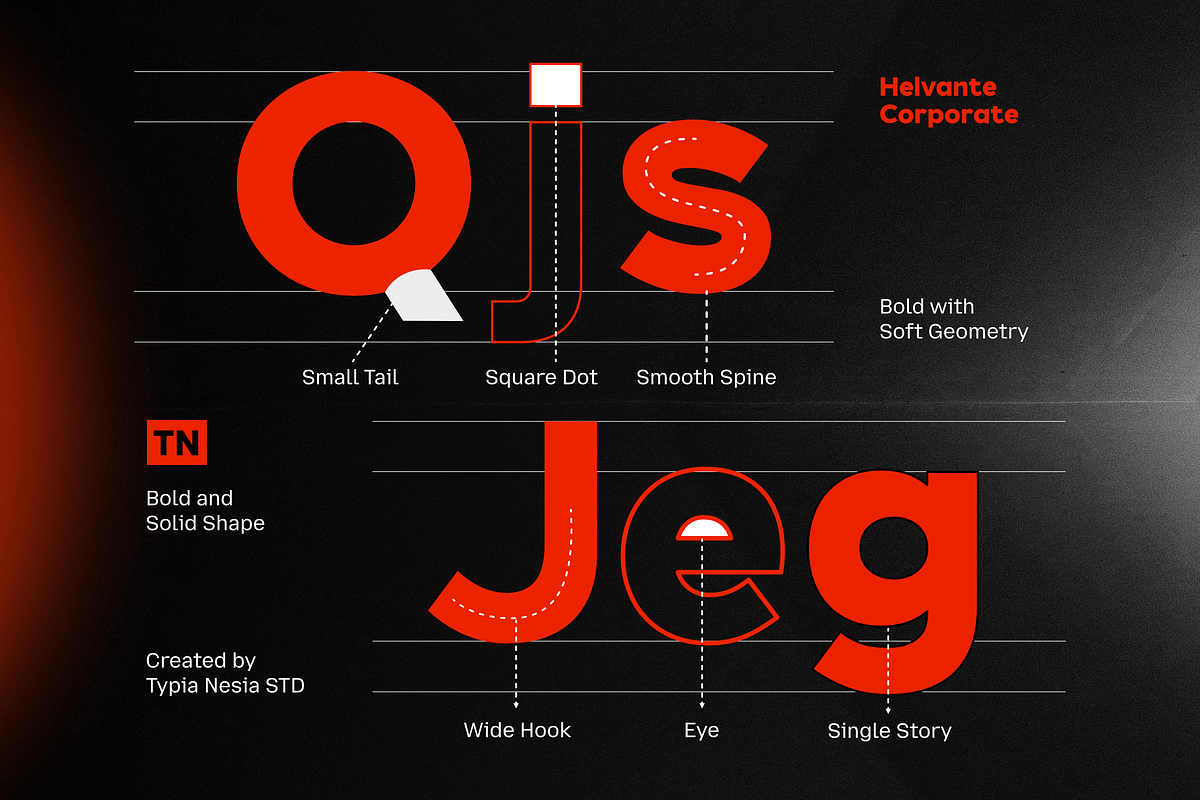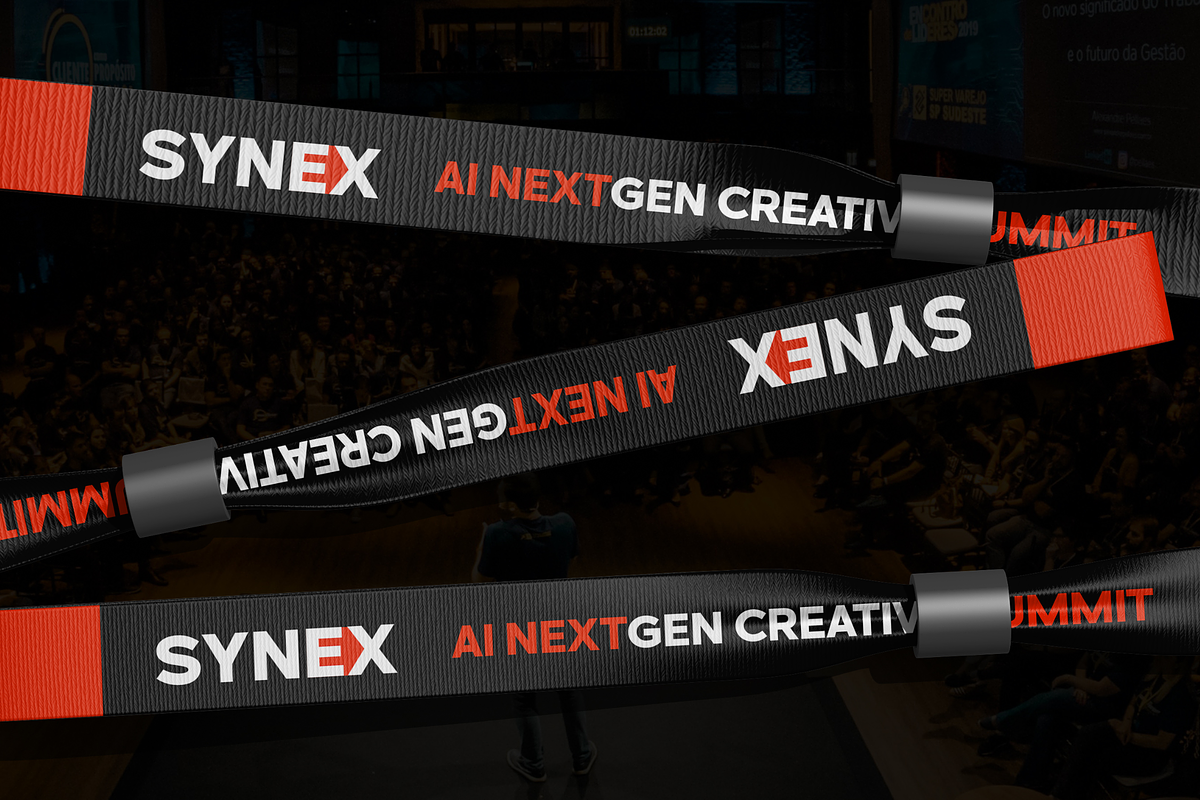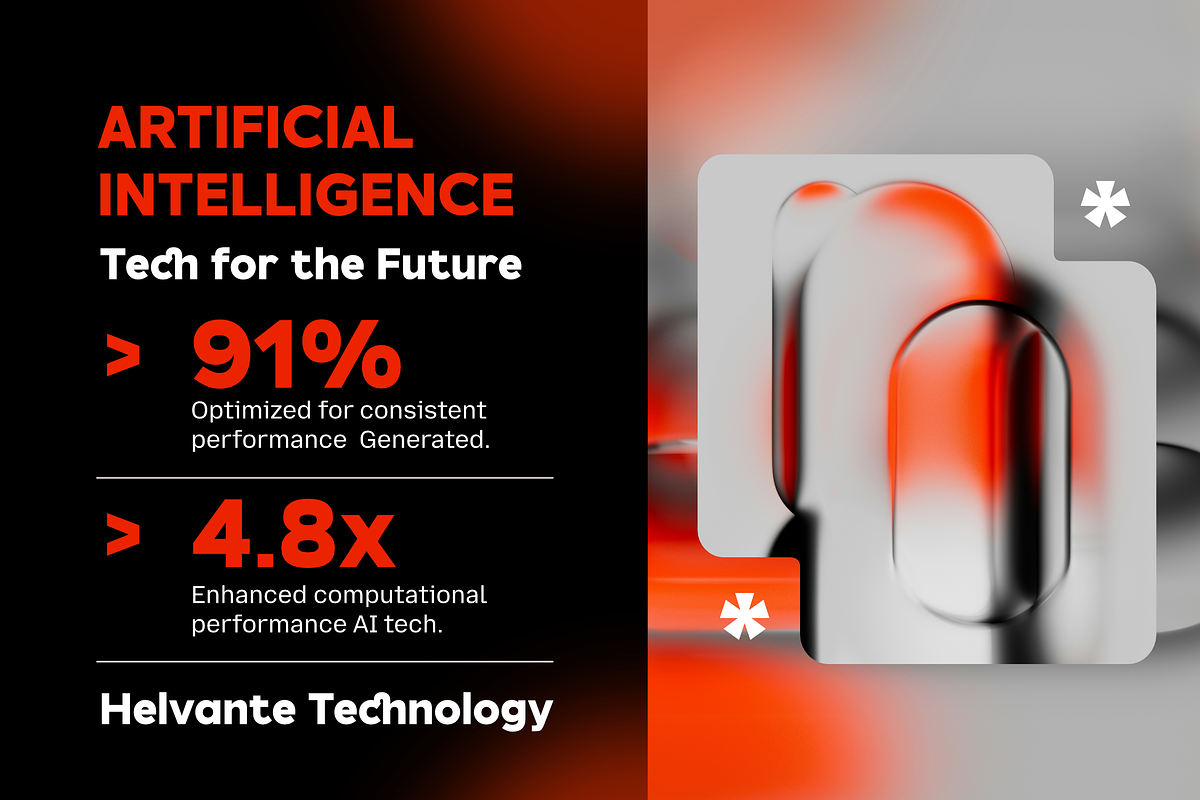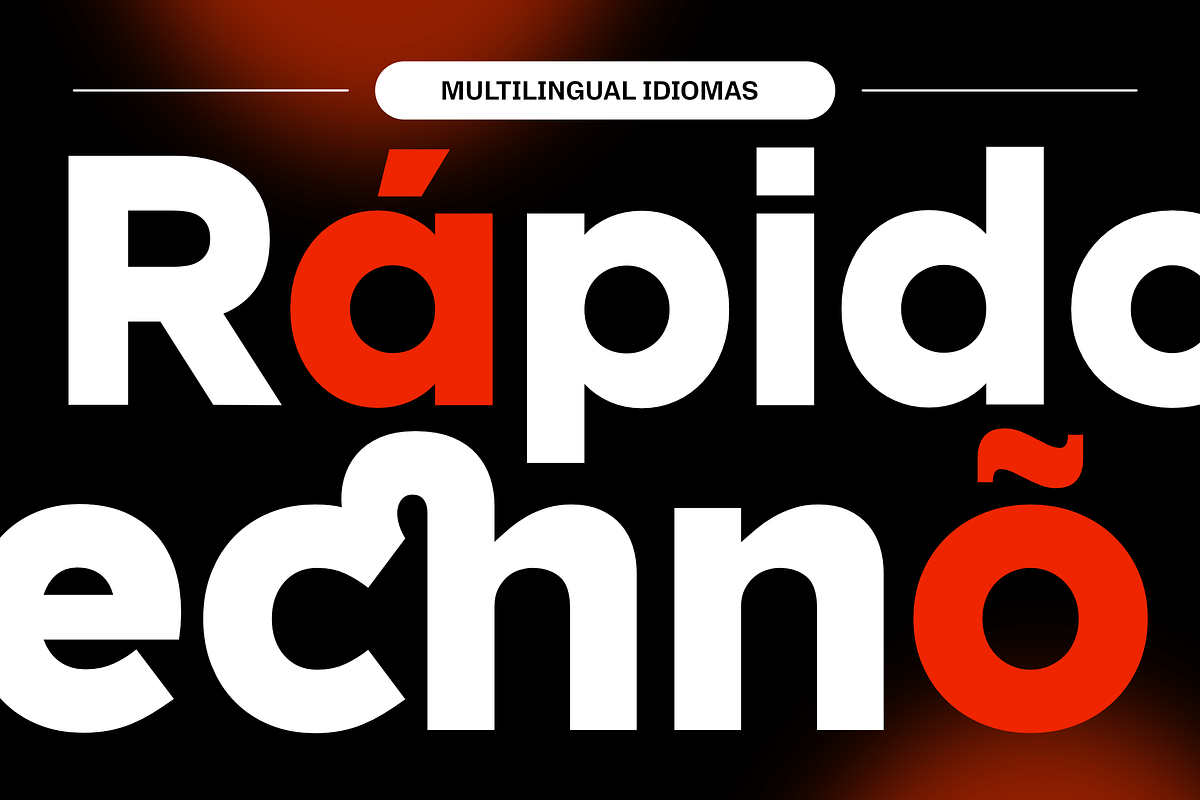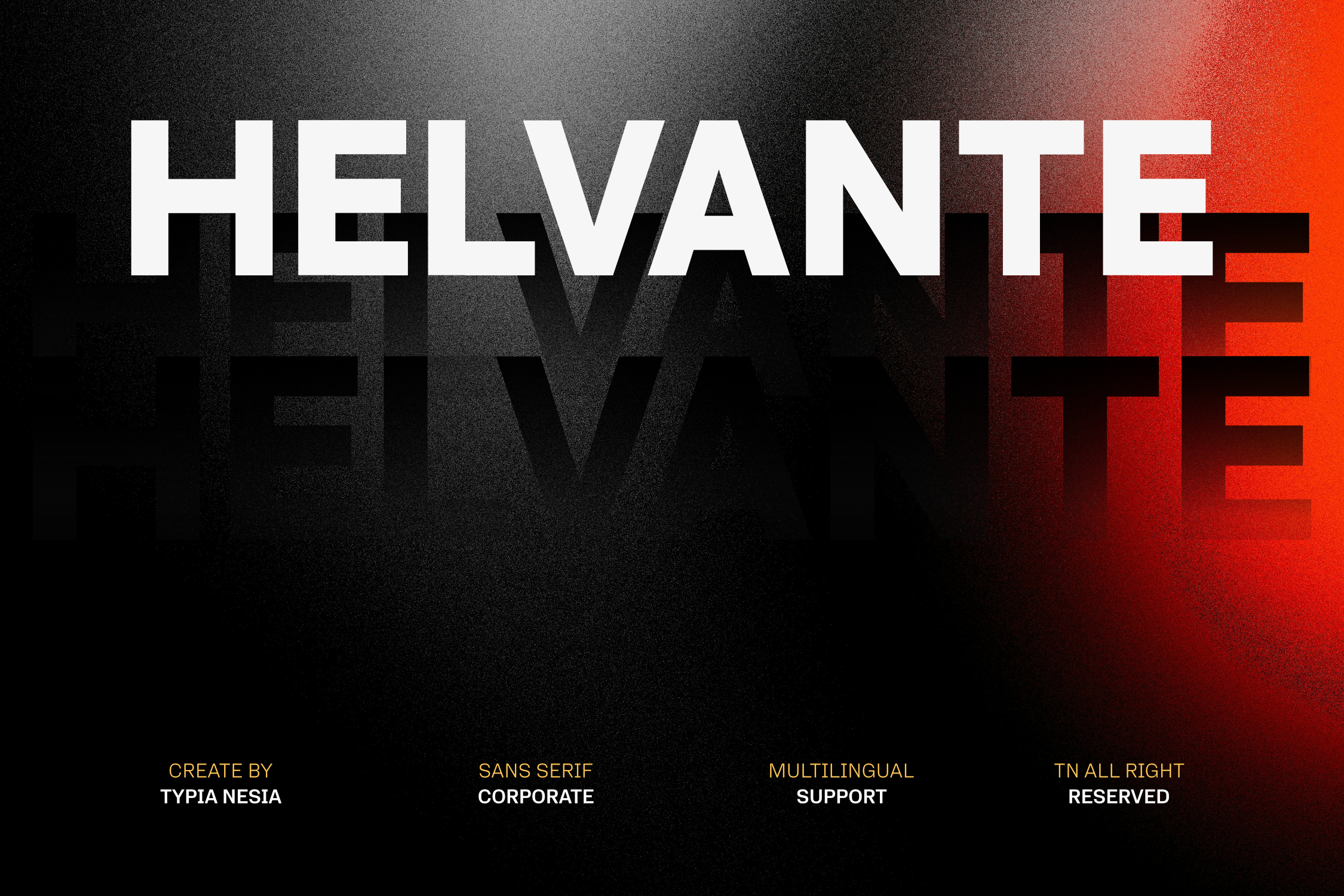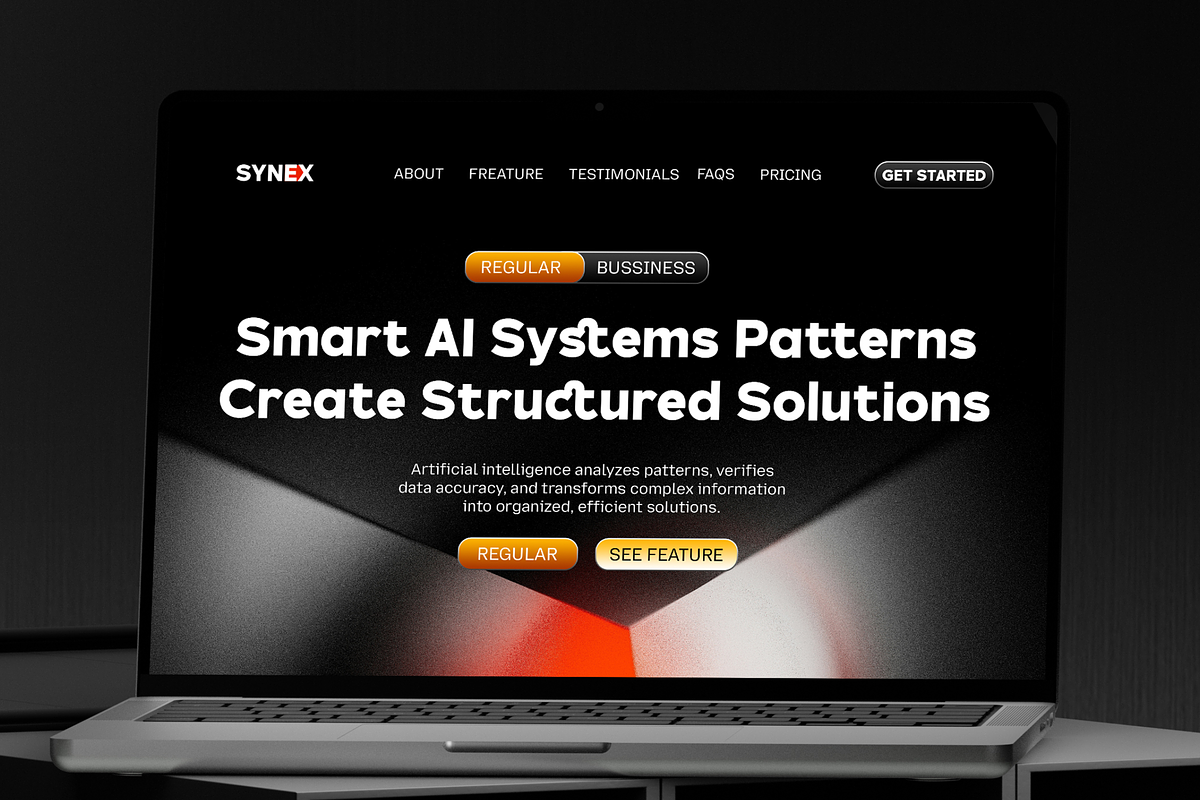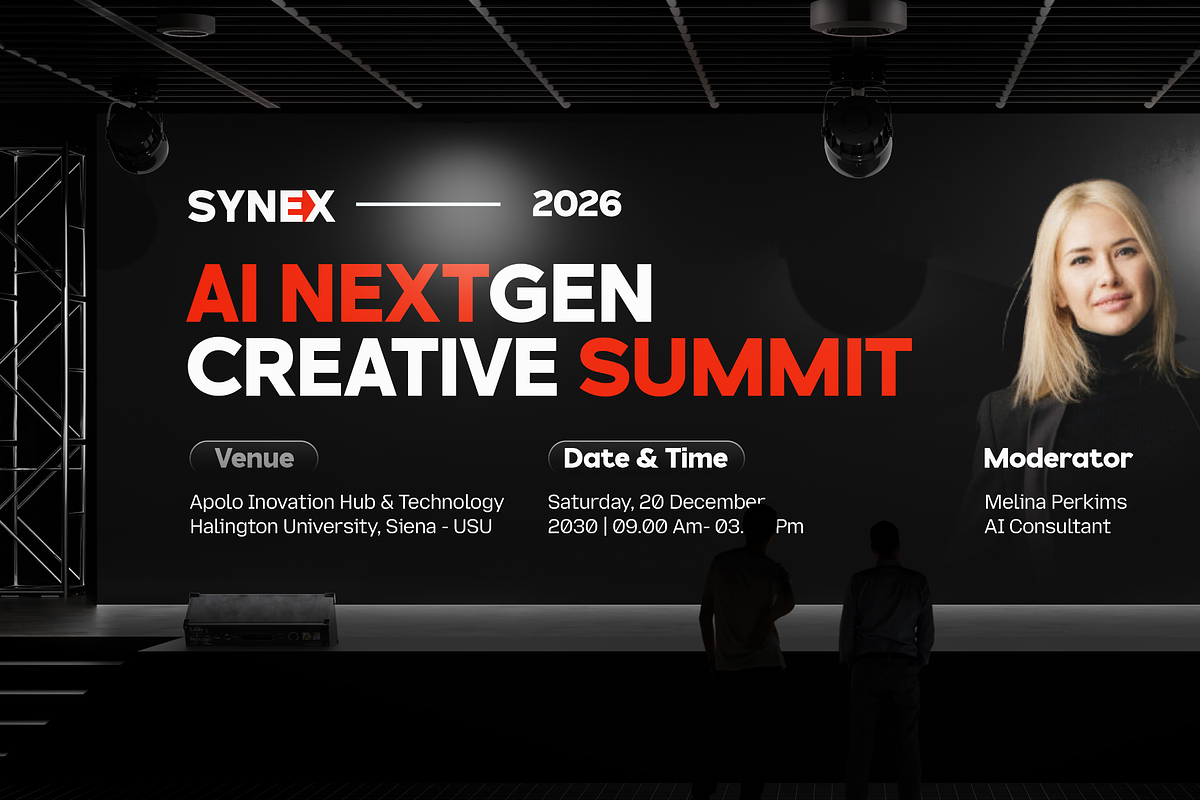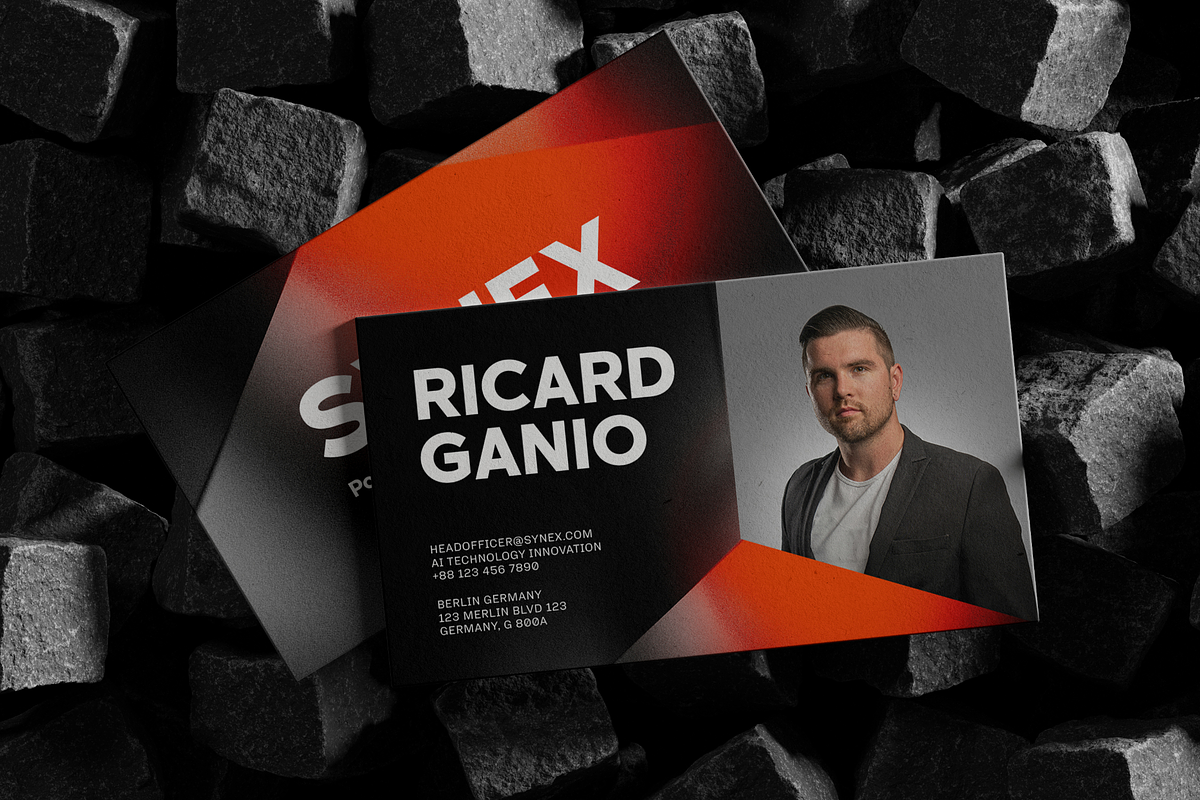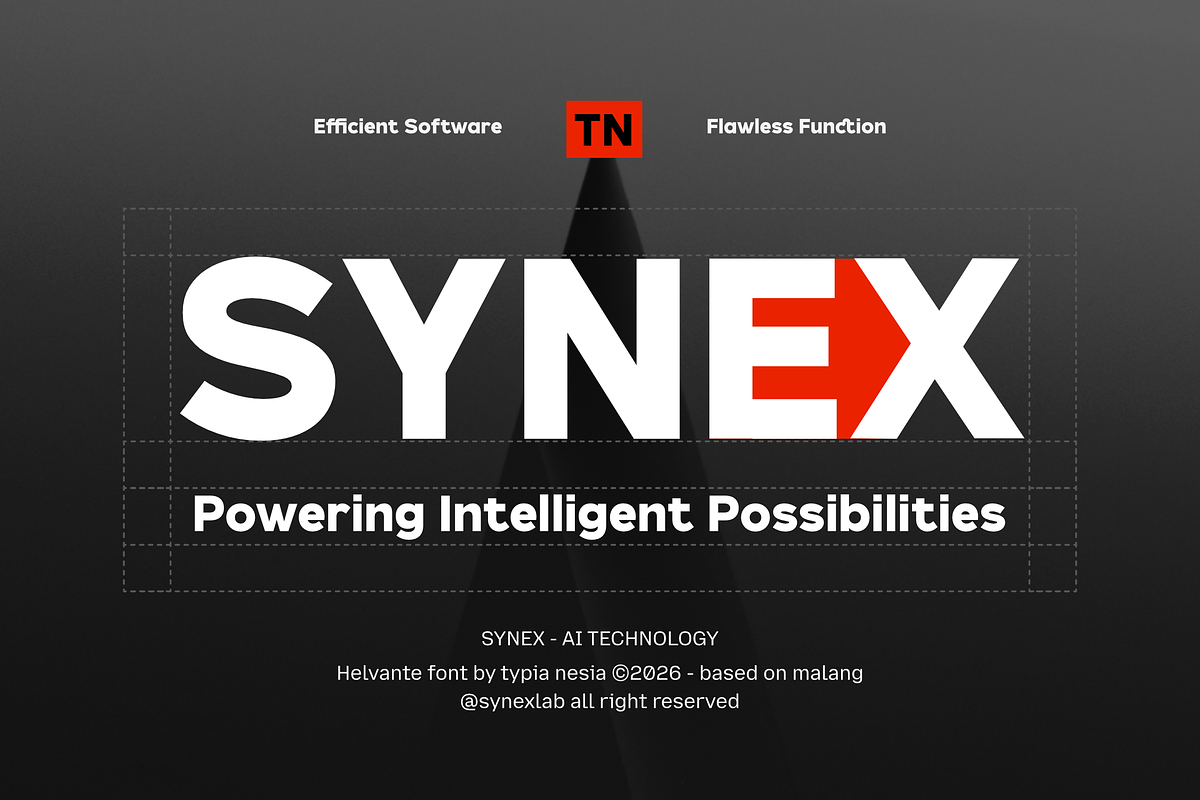
Helvante - Modern Sans Serif Font
Helvante - Modern Corporate Sans Serif Font for Branding & Editorial Design
Helvante is a modern corporate sans serif font featuring clean geometric letterforms, balanced proportions, and exceptional readability. Designed to communicate professionalism and clarity, it delivers a refined visual presence that performs beautifully across both digital and print applications.
Perfect for corporate branding, visual identities, technology companies, startup logos, editorial layouts, websites, mobile interfaces, presentations, packaging, advertising campaigns, and premium marketing materials. Build confident brands with a clean, modern typeface that combines precision, versatility, and lasting visual appeal.